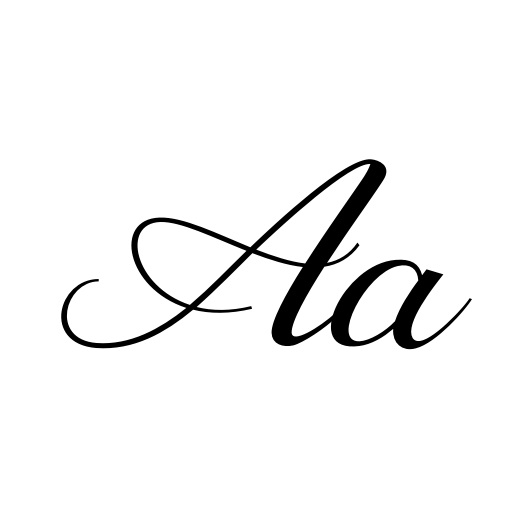
Behind Script is an elegant, delicate script font characterized by slender strokes and graceful, flowing letterforms that capture a refined, classic calligraphic style. With its high contrast between thick and thin lines and beautifully intricate uppercase letters, it conveys sophistication and luxury, making it ideal for invitations, fashion branding, and upscale editorial use. This font excels at creating a stylish, timeless feel where a touch of elegance and flair is desired.
Behind Script Font
About Behind Script Font
| Designer | Ferdiansyah_ijemrealmad_ijemrockart |